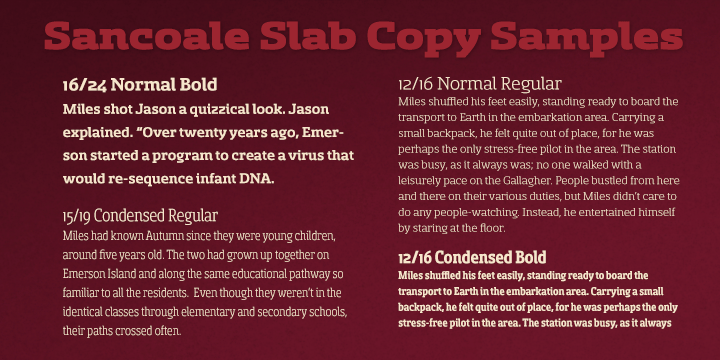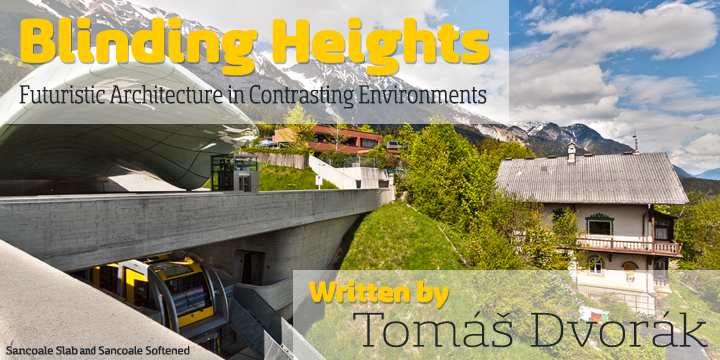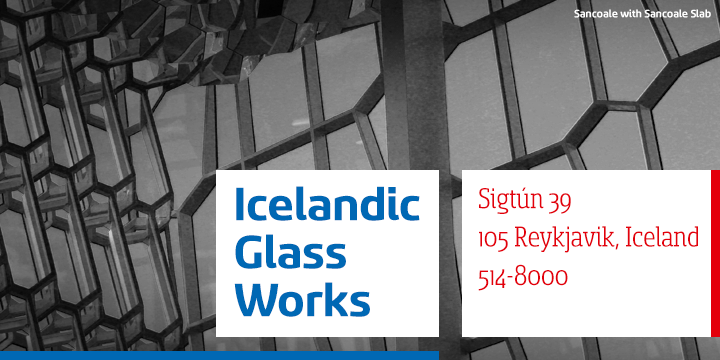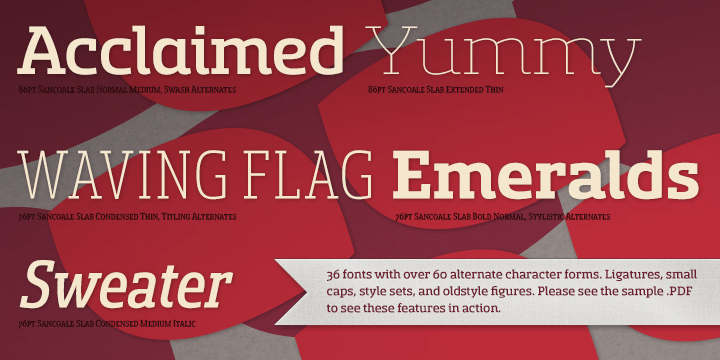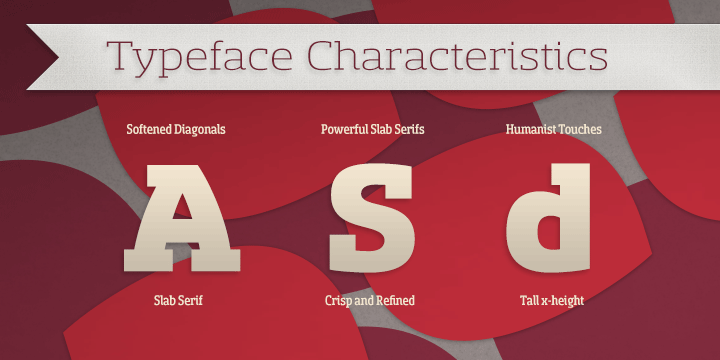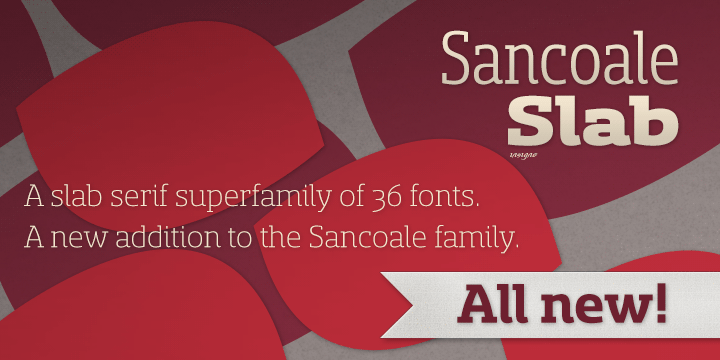
Sancoale Slab is a slab serif font family. This typeface has thirty-six styles and was published by Insigne Design.
The contemporary feel of the Sancoale superfamily takes a bolder turn with this futuristic slab. Built from Sancoale’s successfully simple geometry, Slab’s serif elements and tall x-height give the face an energetic, yet clean figure that easily complements its cousins: Sancoale Softened—a sans with blunted terminals; Sancoale Narrow; and, of course, the original Sancoale itself. The weights of each member have been balanced carefully to ensure compatibility with the others, and when used together, the combination creates a powerful design that is easy to identify.
With weights ranging from the classier Thin to the authoritative Black, Slab opens the door to a range of applications. Used in different text sizes, its tech image is legible and neutral enough for longer bodies of copy—both in print and on the web. Have a more prominent need? The web font also stands out well in a headline or even as a display face. Slab’s great personality puts a strong foot forward without giving its reader a kick in the teeth. Whatever the task, this font’s one to capture the Zeitgeist into your work.
All insigne™ fonts are fully loaded with OpenType features. Sancoale Slab is also equipped for complex professional typography, including alternates with stems, small caps and plenty of alts, including “normalized” capitals and lowercase letters. The face includes a number of numeral sets, including fractions, old-style and lining figures with superiors and inferiors. OpenType-capable applications such as Quark or the Adobe suite can take full advantage of automatically replacing ligatures and alternates. You can find these features demonstrated in the .pdf brochure. Included are small caps, fractions, old-style and lining numbers, scientific superior/inferior figures, complete ordinal and inferior alphabet, and a set of symbols and arrows.
The Sancoale family also includes the glyphs to support a wide range of languages, including Central, Eastern and Western European languages. In all, Sancoale Slab supports over 40 languages that use the extended Latin script, making the new addition a great choice for multi-lingual publications and packaging.